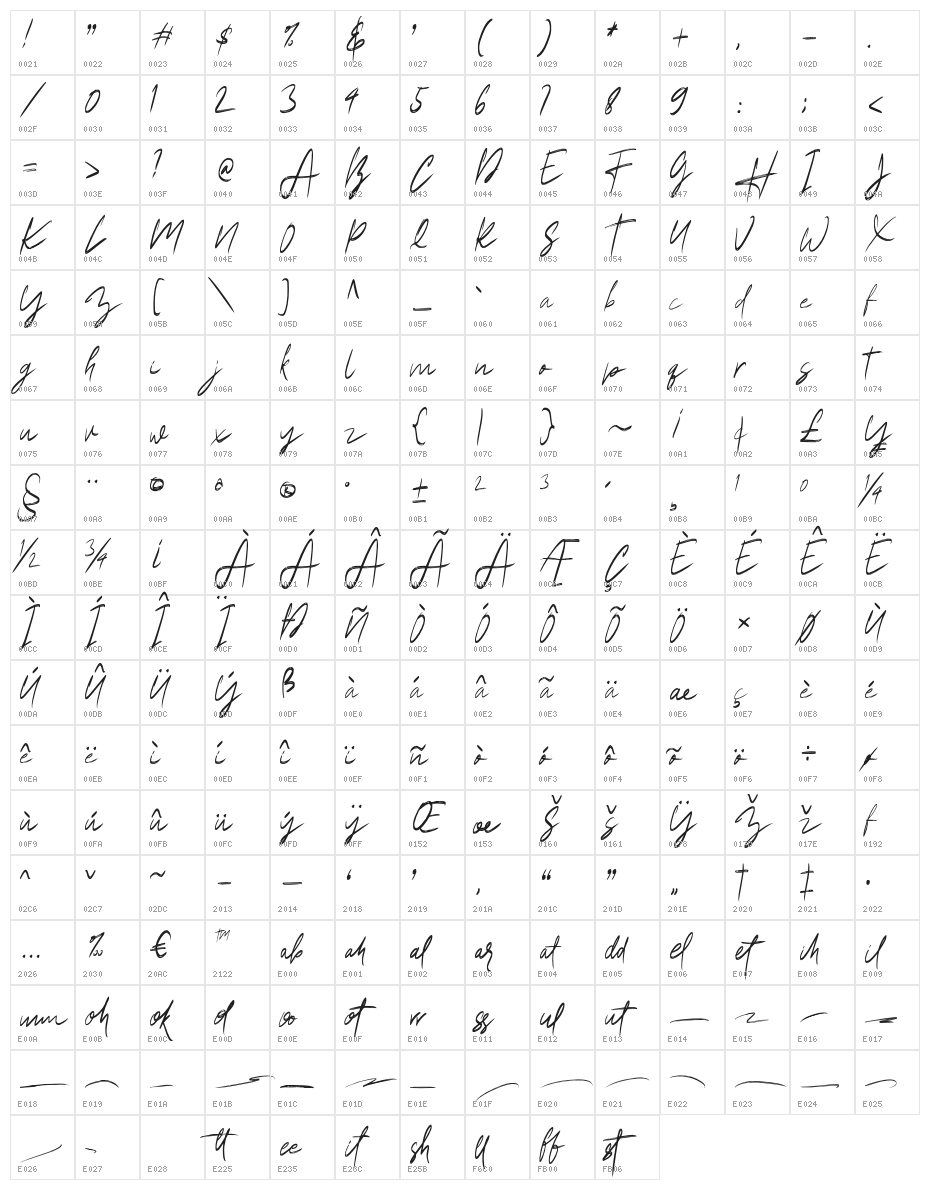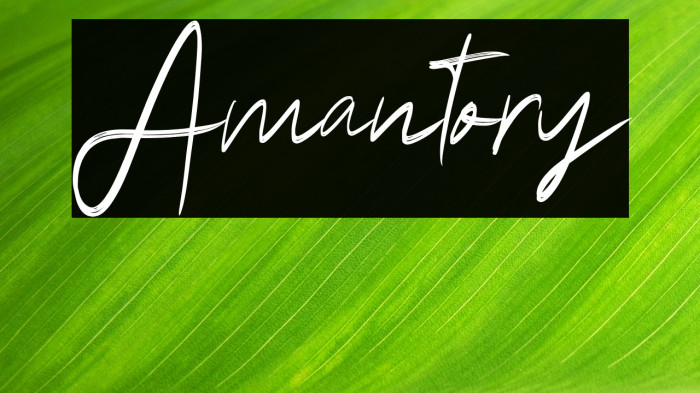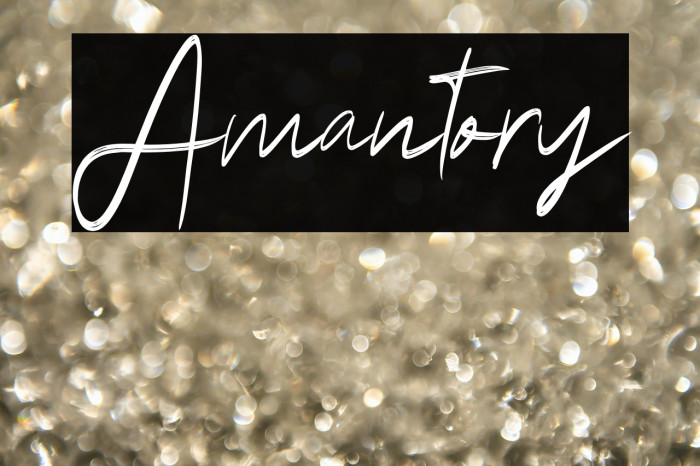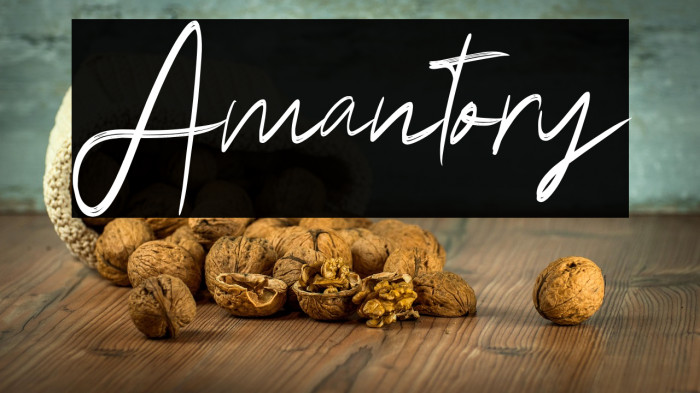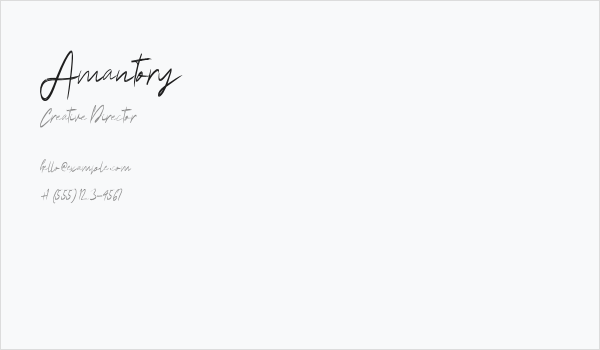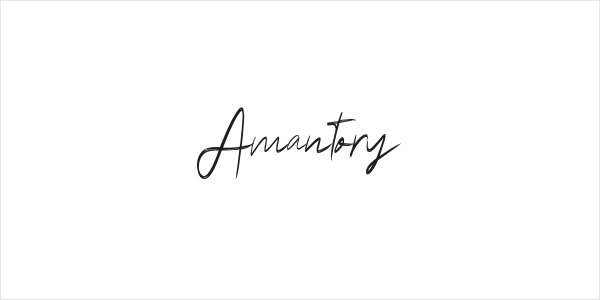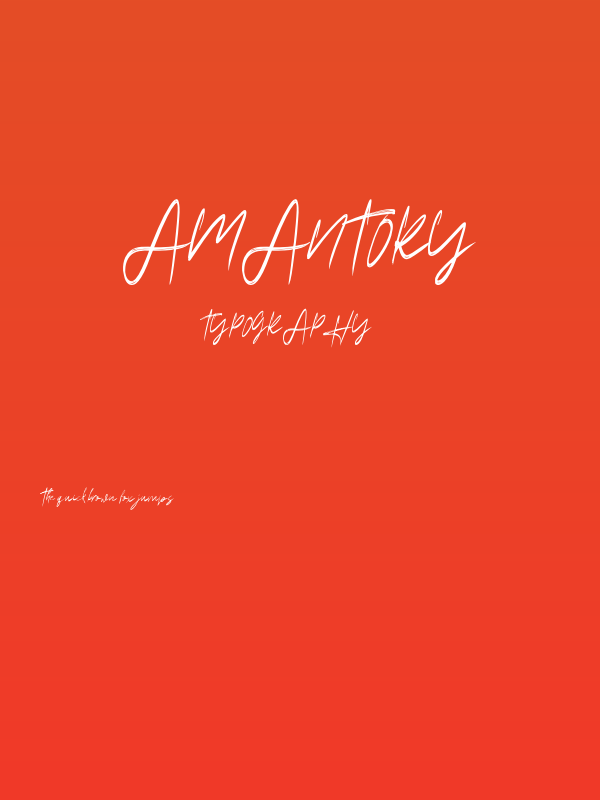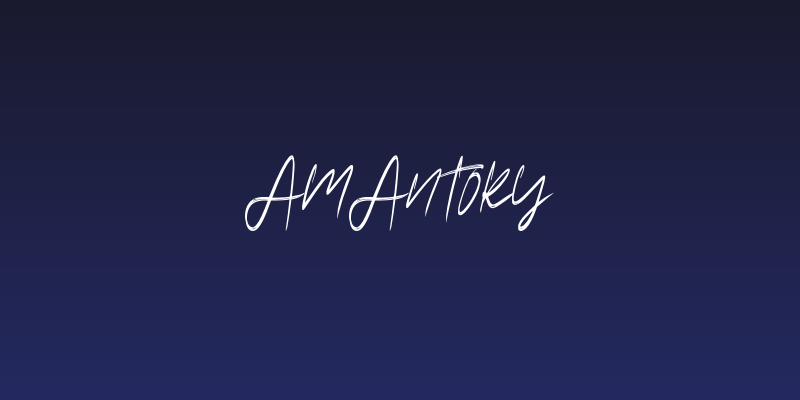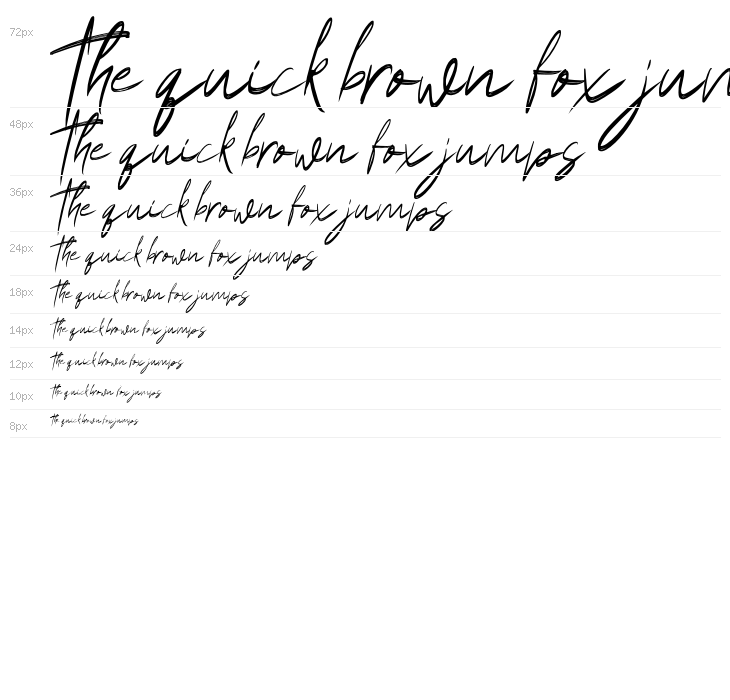
Amantory Font
Amantory Description
This font exudes a dynamic and expressive handwritten style, characterized by its fluid and cursive strokes. The uppercase letters are bold and sweeping, while the lowercase letters maintain a consistent flow, adding a personal touch to the text. The numerals and special characters are crafted with the same attention to detail, ensuring a cohesive appearance across all elements. The overall design is both elegant and energetic, making it suitable for projects that require a personal or artistic flair. The spacing between characters is tight, enhancing the handwritten effect and creating a sense of urgency and movement.
| Proposed Projects | Ideal for wedding invitations, personal branding, artistic projects, and greeting cards. |